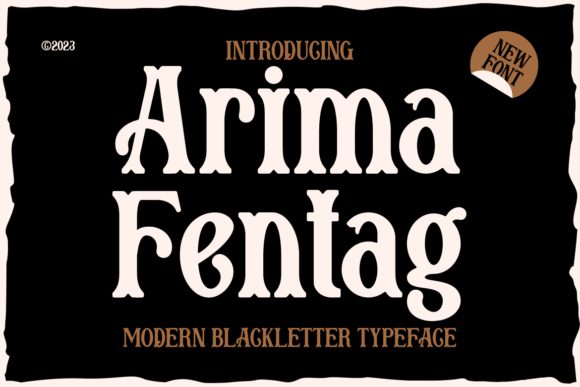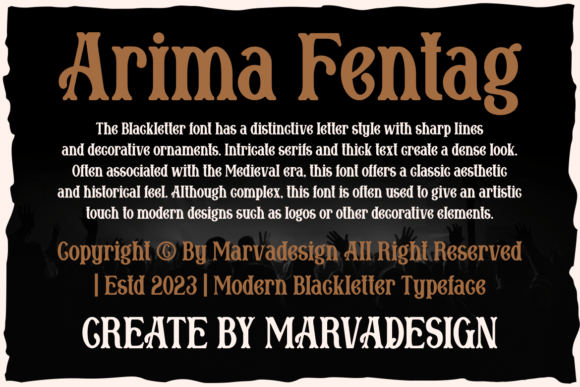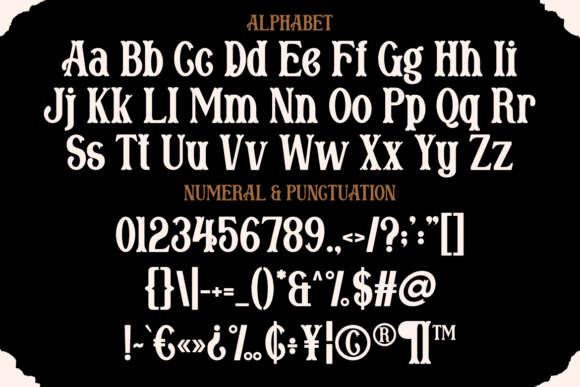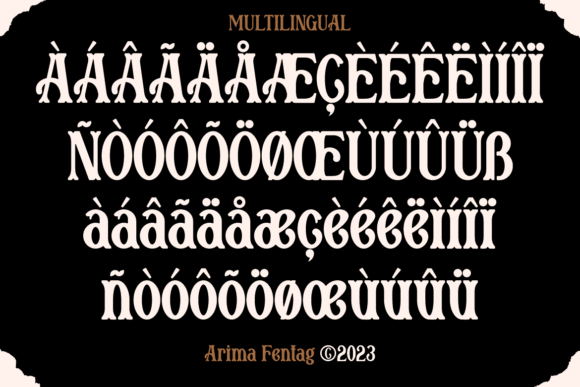
Arima Fentag Font
About the Arima Fentag Font
Unleash your creativity with Arima Fentag Font, a versatile font perfect for a wide range of applications. Arima Fentag is an old, fancy font with two parts to each letter. It has a classic, decorative style called blackletter, which looks like old Gothic or medieval writing.
Arima Fentag’s strong verticality and intricate detail make it ideal for headlines, logos, and short, impactful text in branding materials or posters. Its decorative nature lends itself well to projects with a vintage or luxury feel. However, avoid using it for body text or UI elements; the complexity of the glyphs would hinder readability in continuous text.
Its bold personality pairs well with clean, modern sans-serif fonts like Helvetica or Open Sans for contrast and improved readability in supporting text. For a more traditional feel, a classic serif like Garamond or Times New Roman can create a balanced and sophisticated aesthetic. Avoid pairing it with other highly decorative fonts as this would create visual clutter.
Arima Fentag projects an air of authority and timeless elegance. It is best suited for brands aiming for a sophisticated and perhaps slightly formal image, such as high-end fashion, historical societies, or luxury goods.